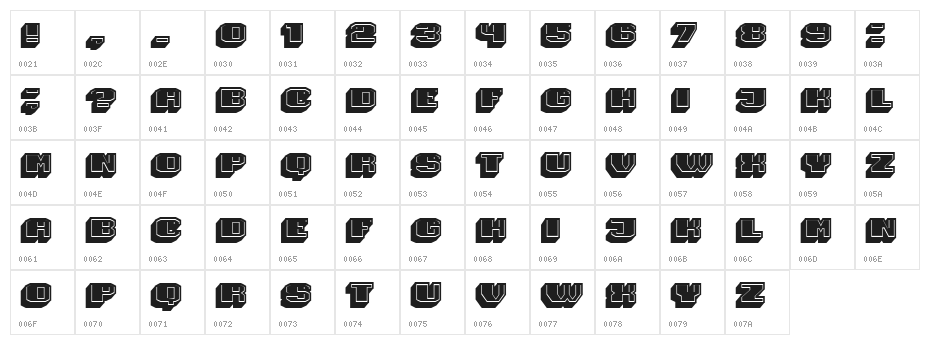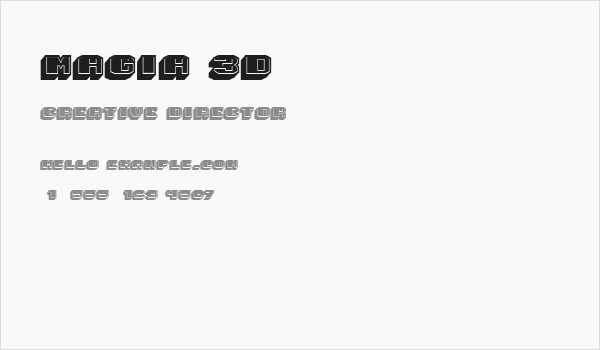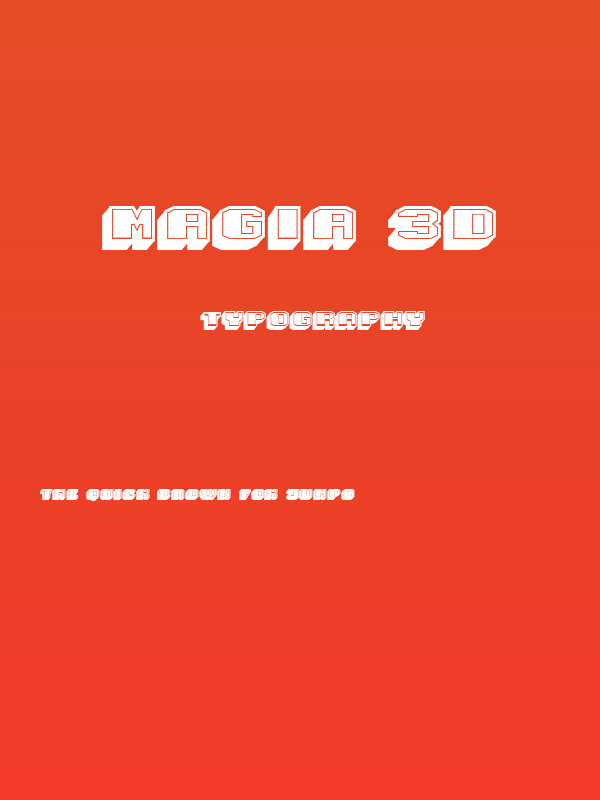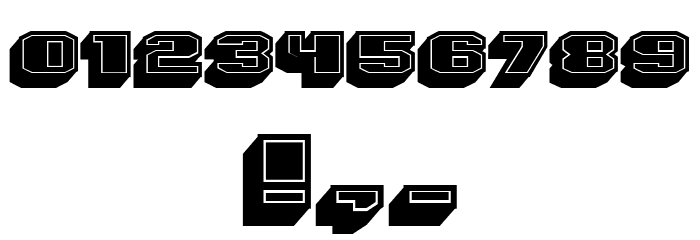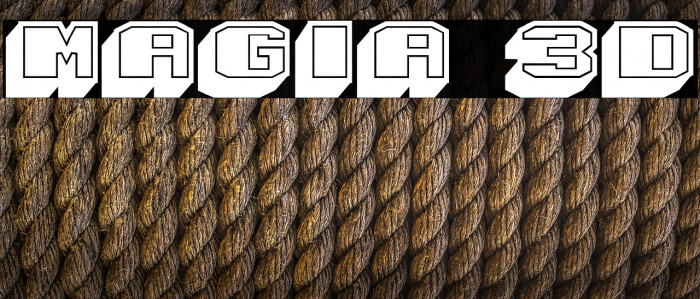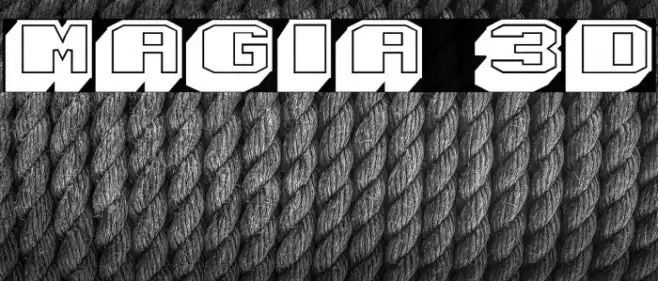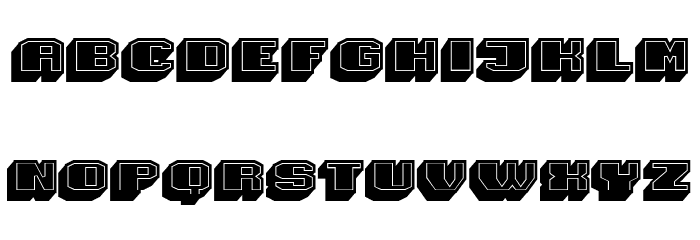
Magia 3D Font
Magia 3D Description
This font features a bold, three-dimensional style with a strong, impactful presence. Each character is designed with a shadow effect that gives it a distinct 3D appearance, making it stand out prominently. The letters are uniformly wide, with a consistent thickness throughout, which enhances the boldness of the font. The edges are sharp and angular, contributing to a modern and dynamic look. The numbers and special characters follow the same design principles, ensuring a cohesive appearance across all elements. This font is ideal for projects that require a striking and attention-grabbing typeface.
| Proposed Projects | Ideal for posters, headlines, logos, and any design needing a bold, eye-catching typeface. |